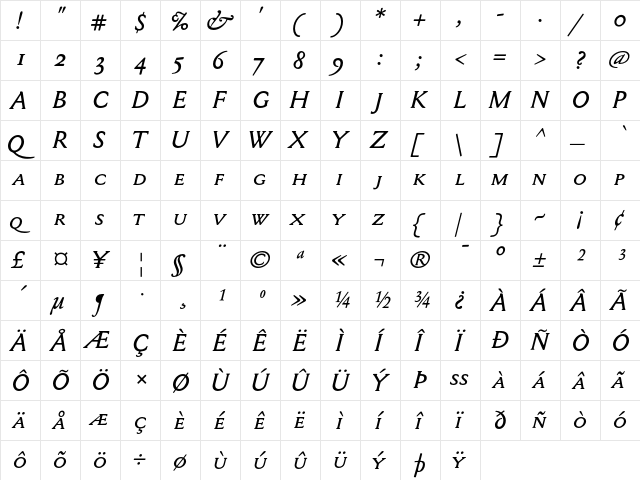
Mediaeval SC+OSF Italic
Design Context for Mediaeval SC+OSF Typeface
Mediaeval SC+OSF is a composed and adaptable typeface that performs quietly and consistently across a wide range of design contexts. Its italic angle brings a sense of urgency and motion to the letterforms.
Pro Tip: Try Mediaeval SC+OSF for annotation and caption copy alongside an upright companion — the contrast in angle creates a dynamic but ordered typographic system.